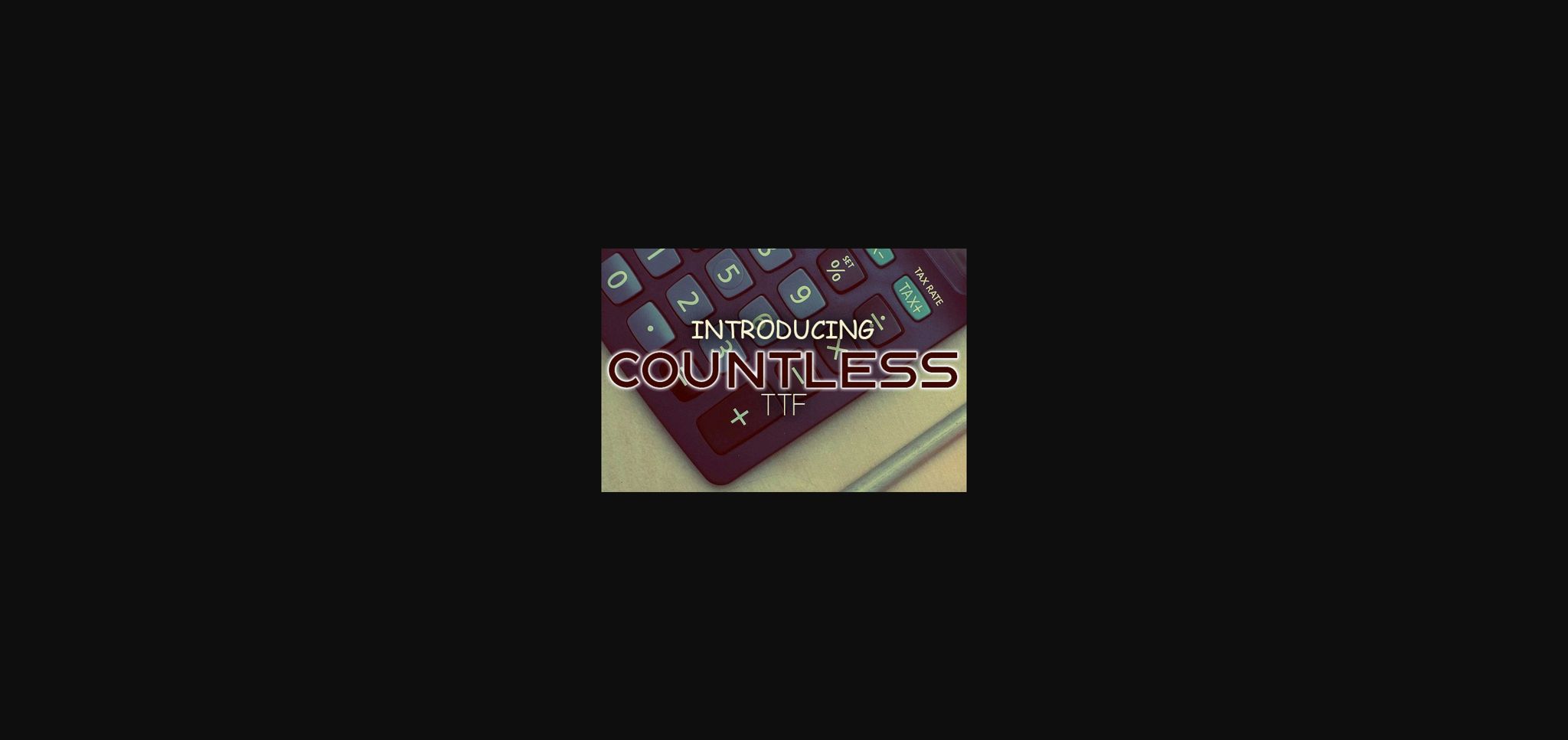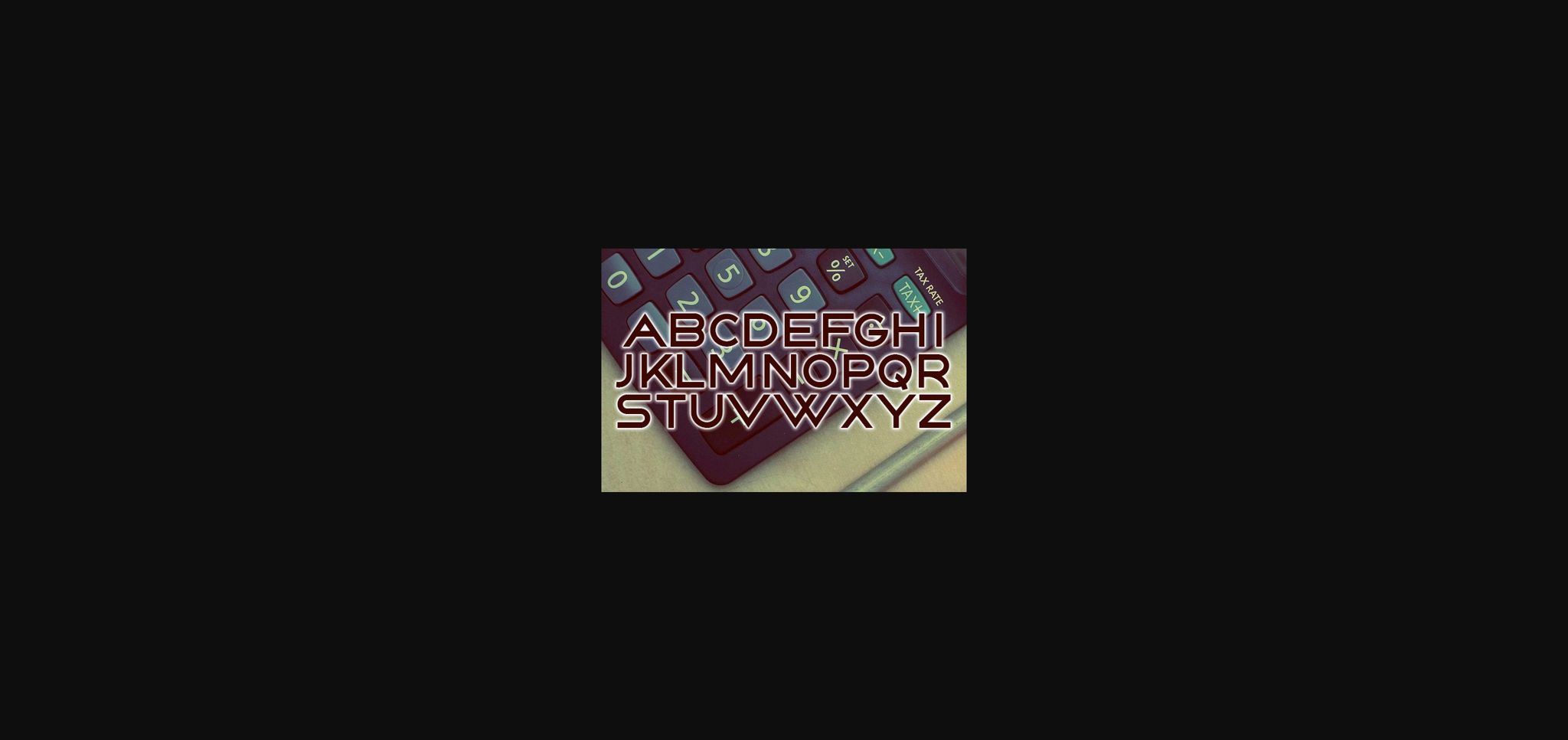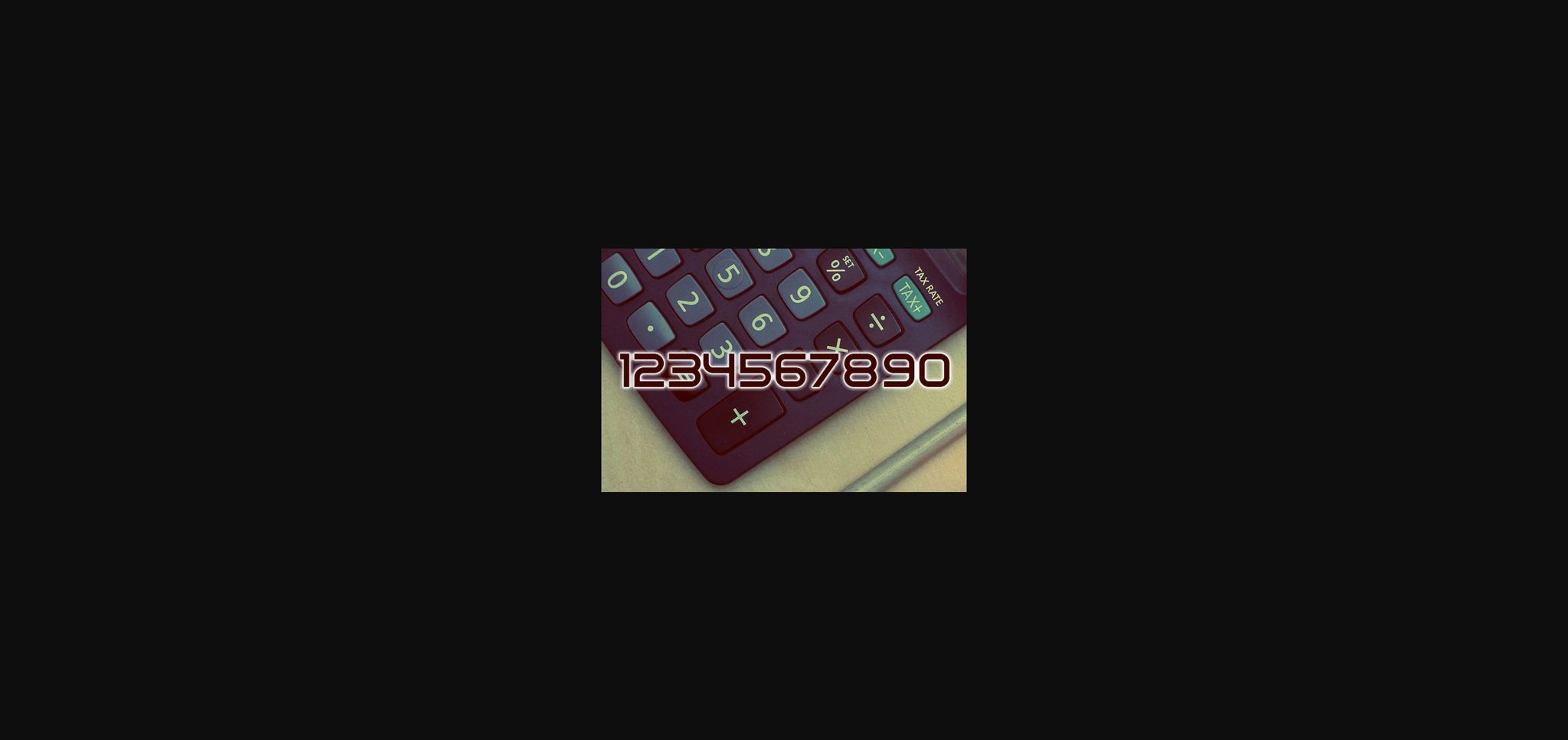
Countless Font
About Countless Font
Countless is an extravagant typeface that will look awesome on any of your projects. Use this font on postcards, t-shirts, headlines, and more.